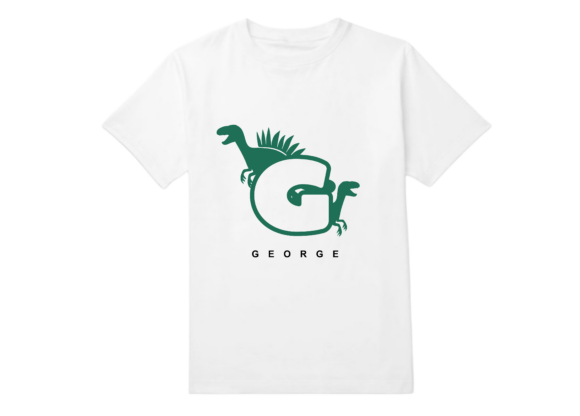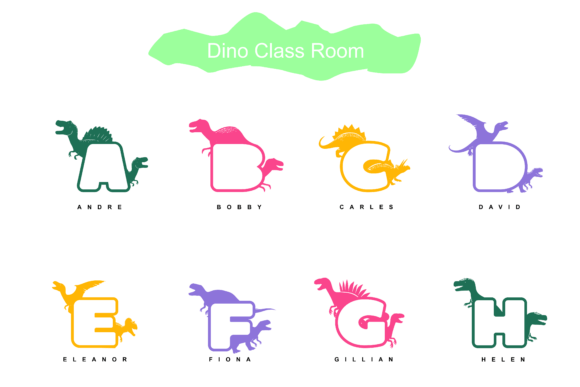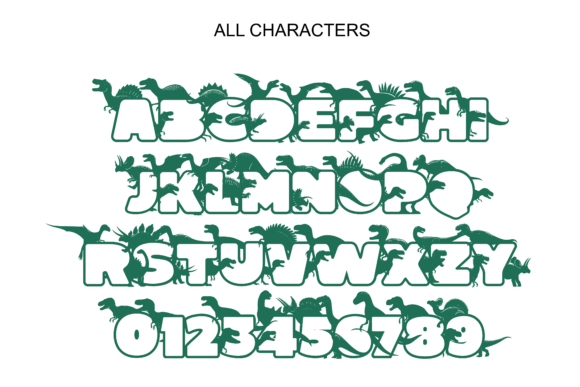
Dive into the Vibrant Universe of Dino Land Font
In the realm of typography, few fonts have managed to capture the essence of creativity and playfulness as effectively as the Dino Land font. This innovative typeface is not just a collection of letters; it’s an experience, a journey into a world where imagination knows no bounds. Designed to invigorate and fuel any project, Dino Land stands out as a shining testament to imaginative design, meticulously forged to amplify an array of creative pursuits.
The Allure of Dino Land
At first glance, the Dino Land font may seem like a simple, whimsical typeface. However, it is so much more than that. Its distinctive character injects an energetic tempo into your artistic endeavors, making it the perfect companion for designers, crafters, and creatives looking to elevate their work. Whether you’re crafting a logo, designing a poster, or creating digital content, Dino Land brings a spirited, singularly captivating appeal that is hard to resist.
Exploring the Features of Dino Land
So, what makes Dino Land such a unique and valuable addition to your typography arsenal? Here are a few key features that set it apart:
- Unique Character Design: Each letter in the Dino Land font is designed with a playful, almost prehistoric flair, giving your text a fun and adventurous feel.
- Versatility: From titles and headings to body text, Dino Land can be used across a wide range of projects, adapting seamlessly to different contexts and applications.
- Easy to Read: Despite its playful design, Dino Land remains highly legible, making it suitable for both digital and print media.
- Customizable: The font comes with various weights and styles, allowing you to tailor your typography to fit your project’s specific needs.
Applications of Dino Land
The versatility of the Dino Land font makes it an excellent choice for a variety of creative projects. Here are some of the many ways you can use Dino Land:
- Branding and Logos: Use Dino Land to create a memorable logo that stands out from the competition.
- Posters and Flyers: Add a touch of whimsy and fun to your promotional materials.
- Digital Content: From social media posts to website headers, Dino Land can add a playful touch to your online presence.
- Educational Materials: Make learning more engaging with a font that captures the imagination.
- Packaging: Stand out on store shelves with product packaging that features a unique and eye-catching font.
Why Choose Dino Land?
In a world where typography plays a crucial role in communication and branding, choosing the right font can make all the difference. Here are a few reasons why Dino Land should be at the top of your list:
- Creativity Unleashed: Dino Land is not just a font; it’s a tool for creative expression, allowing you to bring your ideas to life in a vibrant and engaging way.
- Time-Saving: With its wide range of applications and ease of use, Dino Land can save you time and effort in your design process.
- Professional Quality: Despite its playful nature, Dino Land is a professionally designed font that can elevate the quality of your work.
Dino Land is more than just a font; it’s an invitation to explore new dimensions of creativity and imagination. Its unique blend of playfulness and professionalism makes it an invaluable asset for designers, crafters, and creatives looking to make their mark. Whether you’re working on a personal project or a professional assignment, Dino Land offers the perfect combination of style, versatility, and charm. So why wait? Dive into the vibrant universe of Dino Land today and discover a world of limitless creative possibilities.